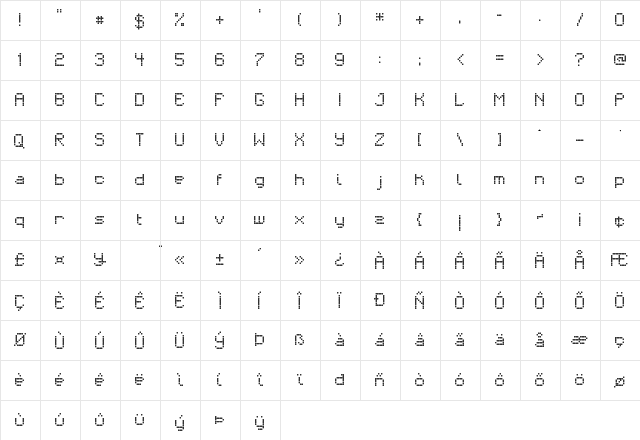
Matrixdancer Regular
Design Context for Matrixdancer Typeface
Matrixdancer takes a measured approach to typography — its balanced proportions and neutral character make it a reliable workhorse for both digital and print work.